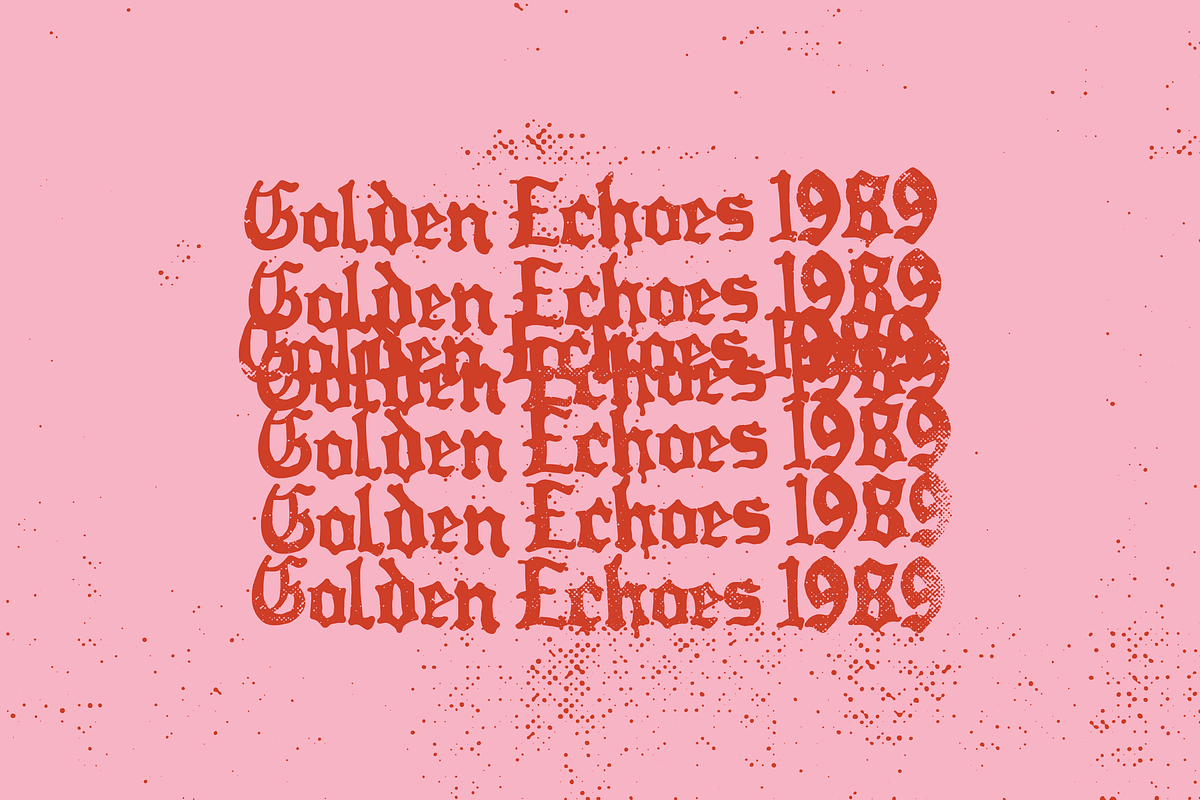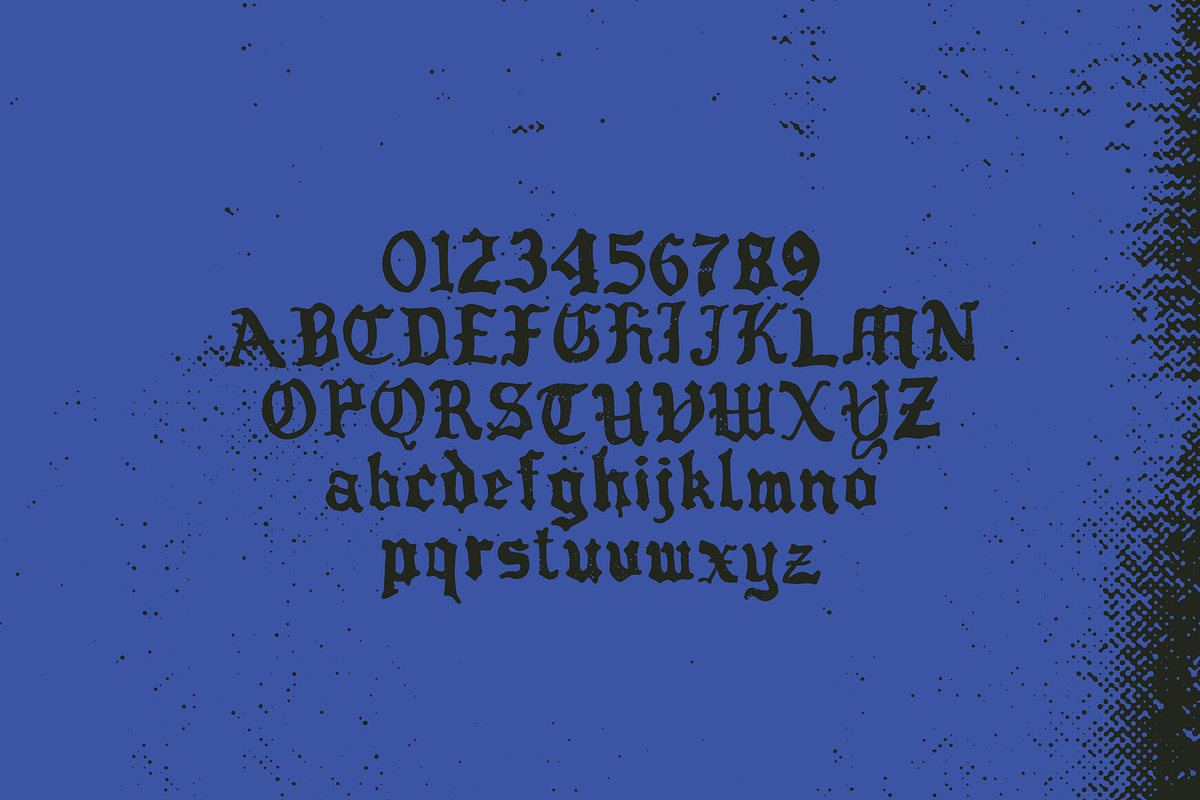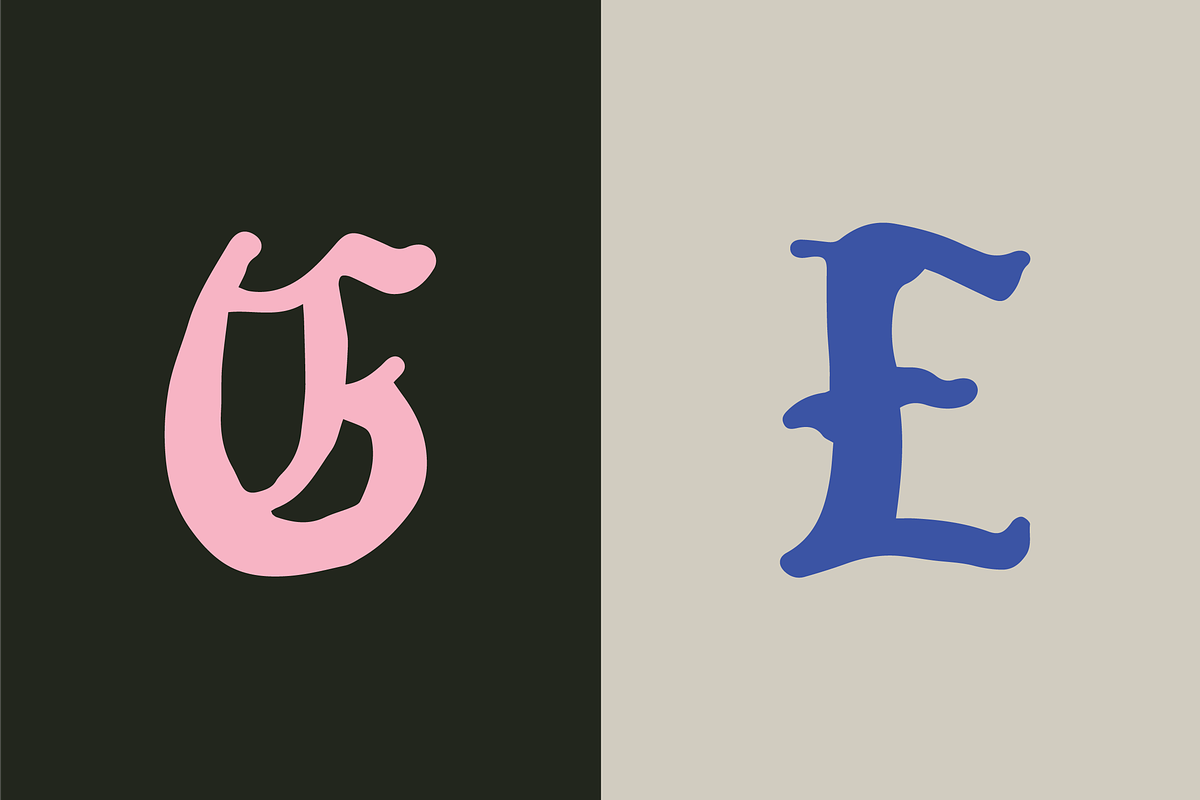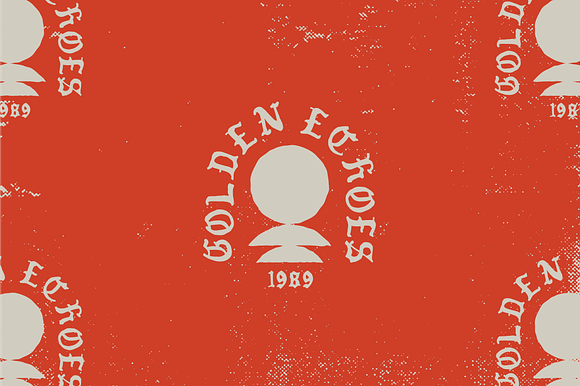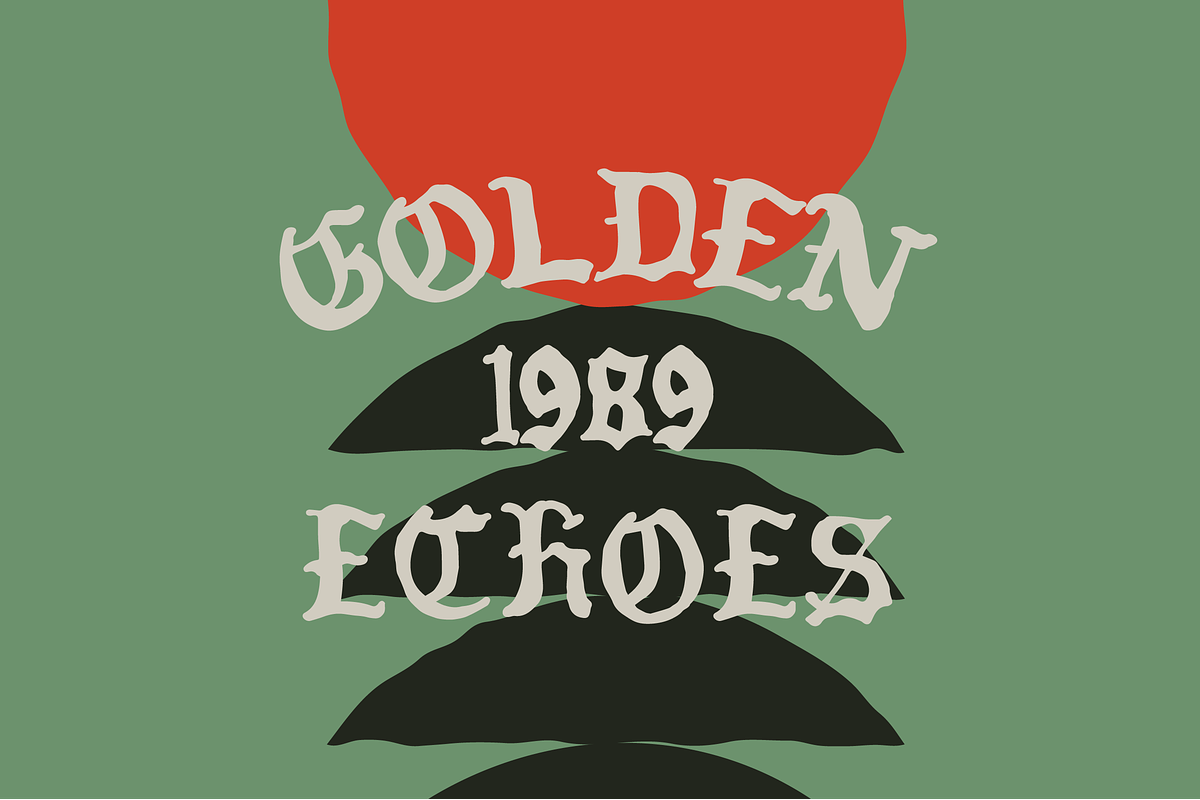
Golden Echoes 1989 Typeface
Golden Echoes is a hand-drawn, black letter typeface modelled after late 1980s punk fliers. Used right it can get you anywhere from doomy to whimsical.